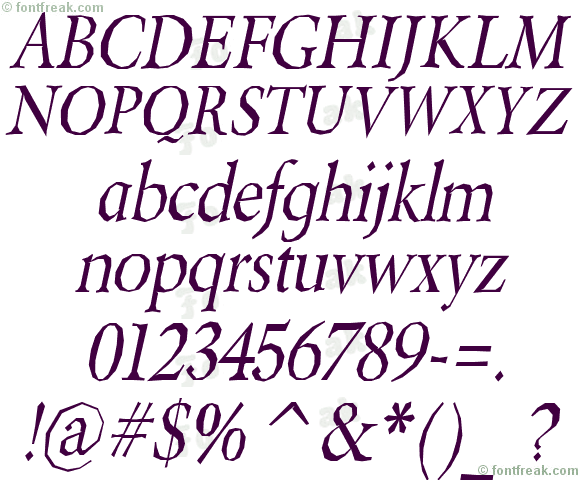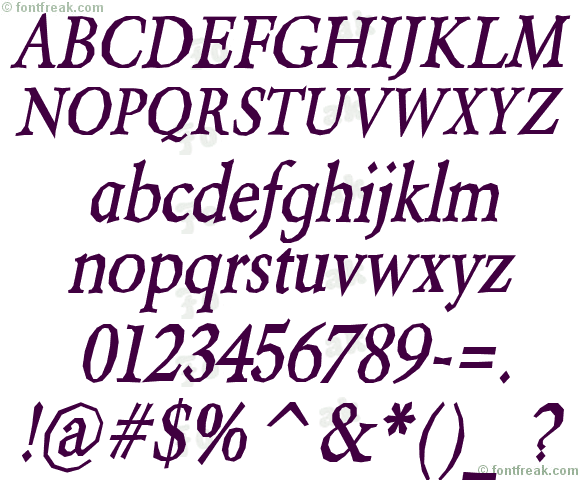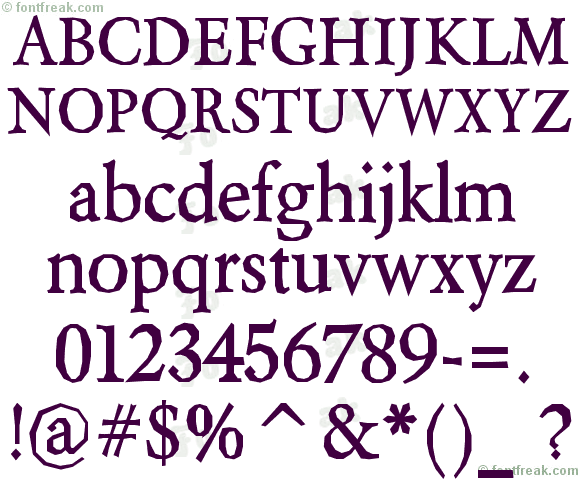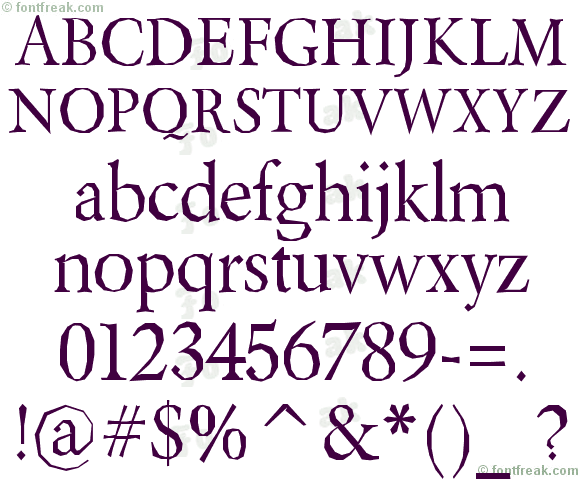
Berylium
Berylium bold Italic
Berylium Italic
Berylium bold
Berylium is a striking display font designed by Ray Larabie in 2000, updated in 2004, and offered as freeware. This font belongs to the category of decorative typefaces, making it an ideal choice for creative projects that require a unique visual appeal. With its bold and italic styles, Berylium captures attention with its pronounced stroke weight and moderate contrast. The letterforms exhibit a distinct character, combining elegance with a touch of whimsy, making it suitable for various design applications.
The visual characteristics of Berylium include well-defined serifs that lend it a classic yet modern twist. The spacing between letters is carefully balanced, ensuring readability while maintaining an artistic flair. Its decorative elements add an intriguing dimension to any text, making it an excellent choice for projects where aesthetics are paramount.
Berylium is particularly well-suited for use cases such as wedding invitations, where its elegant style can enhance the overall theme. It also works beautifully on movie posters, capturing the viewer's attention and setting the tone for cinematic experiences. Restaurant menus can benefit from its unique character, providing an inviting atmosphere that complements the dining experience. Additionally, graphic designers will find this font valuable for branding projects, allowing businesses to stand out in competitive markets.